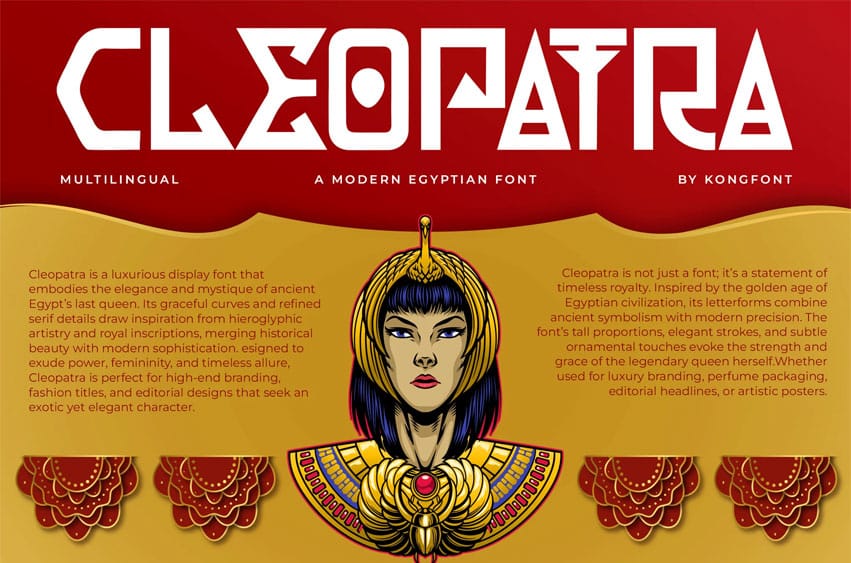
Cleopatra Modern Font is a modern Egyptian font inspired by the timeless beauty and grandeur of ancient Egypt. This typeface captures the essence of royal elegance through its bold, symmetrical letterforms and refined details, creating a perfect harmony between history and modern minimalism.
Cleopatra is ideal for designers who want to evoke mystery, luxury, and power in their projects. Its clean yet decorative shapes make it perfect for branding, packaging, posters, fashion editorials, and cultural designs. Every letter carries a regal aura, reminiscent of hieroglyphic artistry but refined for contemporary aesthetics.
From logos that command attention to titles that tell a story of legacy, Cleopatra transforms any design into a work of timeless sophistication.